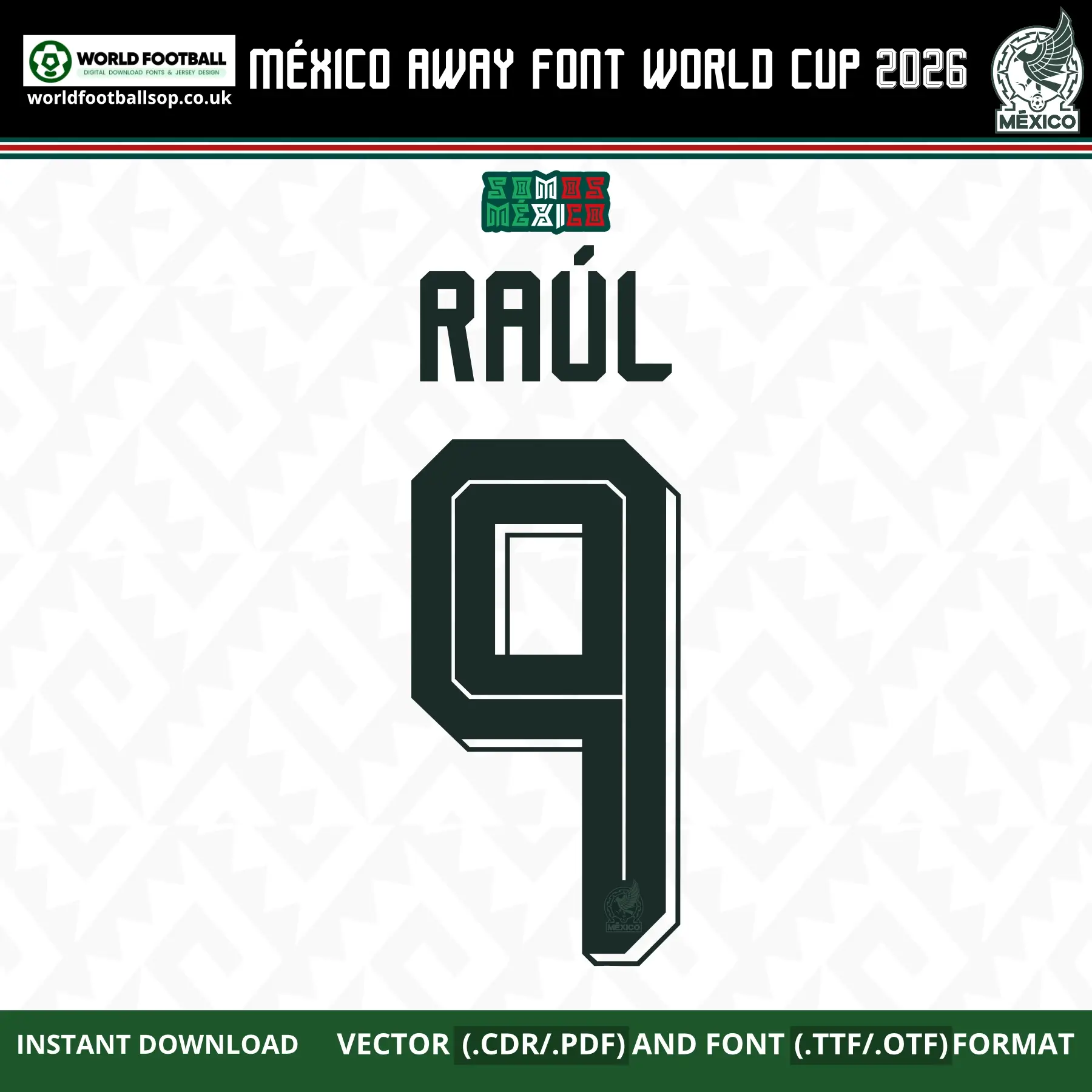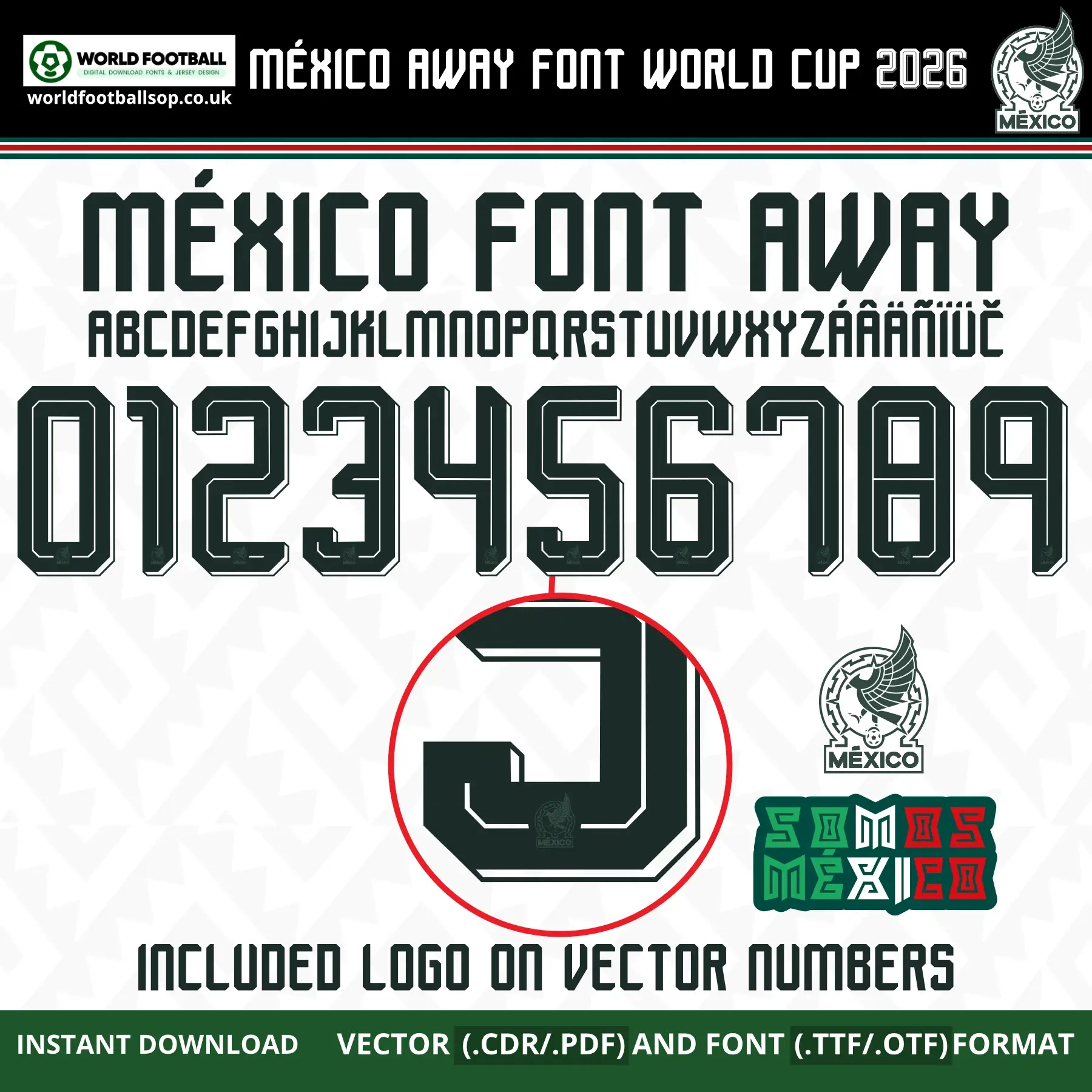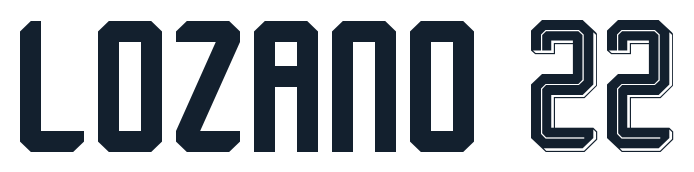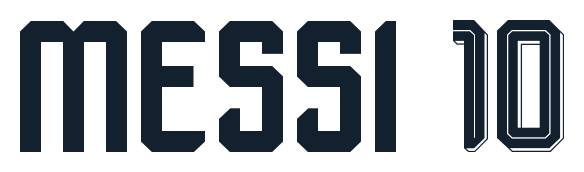
Mexico Away World Cup 2026 Font - Football Kit Typography
Get the authentic football font look with this Mexico Away World Cup 2026 font, perfect for soccer jersey numbers and football kit fonts. Inspired by Adidas' sharp angular design from El Tri's white away kit, it features bold jersey number fonts with clean lines and Mesoamerican styling. Ideal for fans making custom football jerseys, designers creating soccer kit typography, or print shops needing football jersey fonts for vinyl and sublimation.
This football kit font captures Mexico's 2026 World Cup away shirt lettering - tall sports fonts with 3D details that pop on white fabric with green/red accents. Whether you're crafting personalized soccer jerseys, World Cup namesets, or jersey design fonts for social media graphics, this pack delivers pro results fans love.
Full A-Z letters + 0-9 jersey numbers with Spanish accents (Á, É, Í, Ñ, Ó, Ú, Ü)
Previews showing soccer jersey numbers like "LOZANO 22"
Perfect for custom jersey fonts, football namesets like Raúl Jiménez 9 nameset, kit mockups, vinyl cutting, screen printing, and sports typography projects.
World Cup authentic: Matches Adidas 2026 away kit font exactly
High visibility soccer number style - reads clear from stands or screens